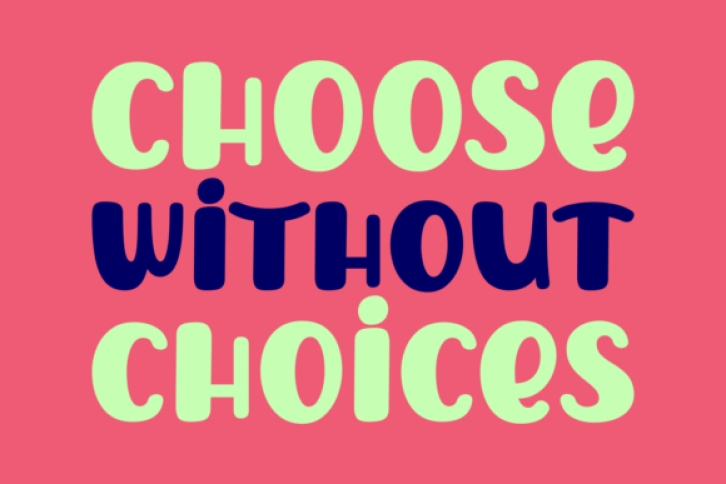
Choose Without Choices is a great display font. It features an incredible friendly look and cute characters. It will elevate a wide range of design projects to the highest level, be it branding, headings, wedding designs, invitations, signatures, logos, labels, and much more!